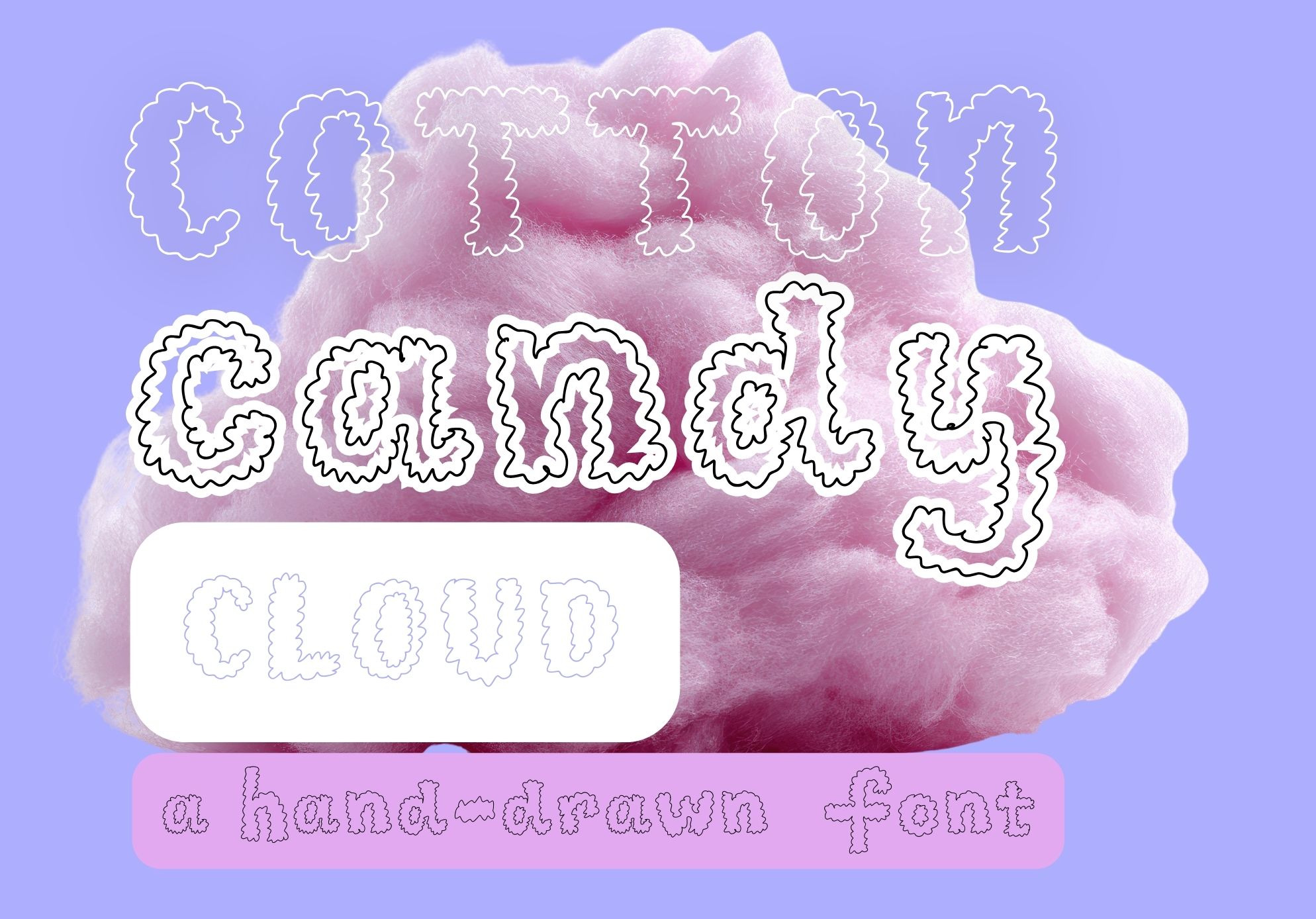
Cotton Candy Cloud Font
Cotton Candy Cloud, is a font full of ethereal playfulness, ready to captivate its viewers. Are you looking for a font that is whimsical, engaging , laid-back, yet enthusiastic and fun? Does your project encompass an energy of artful delight , celebrating creativity? I feel this font could be a great asset in poster design , representing an indie-rock-pop musical artist, or , as a title on a sticker for a yummy treat. If you are looking for a playful, eye-catching font that will bring a smile to the viewer, this just might be the font for you. Full of handmade charm, yet, finely crafted for your creative use. Have Fun !
- original hand-drawn font :)